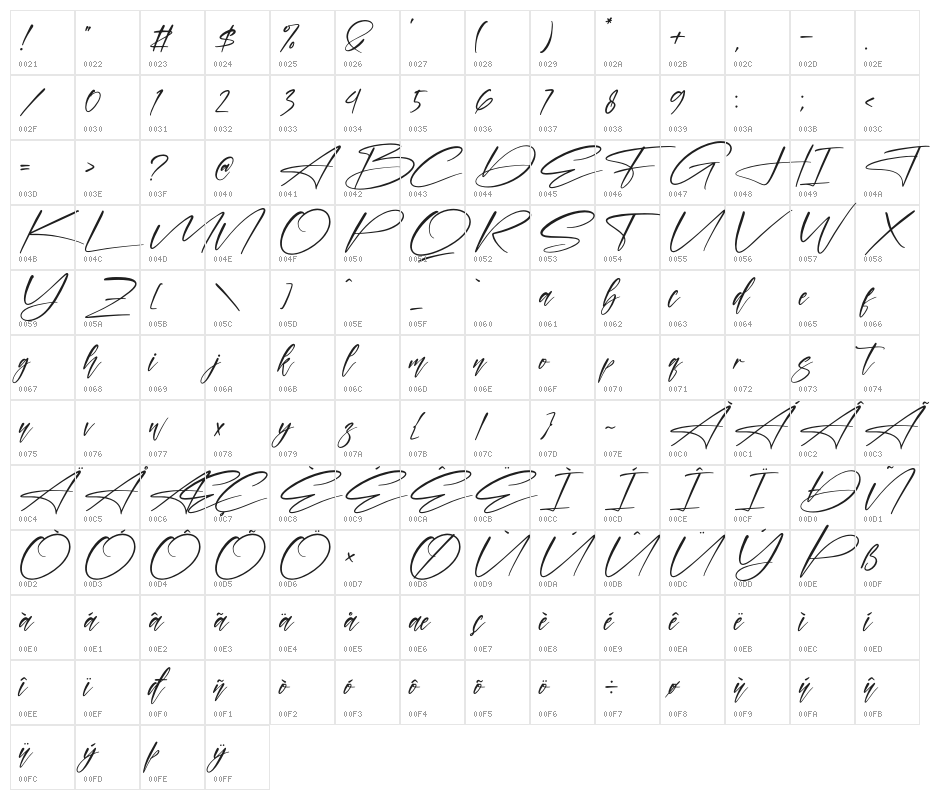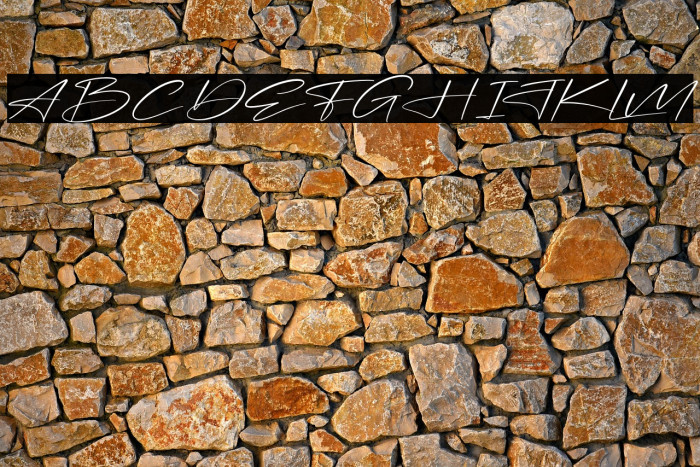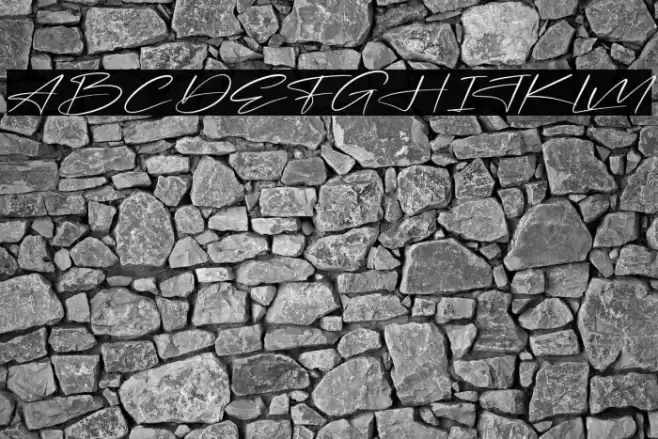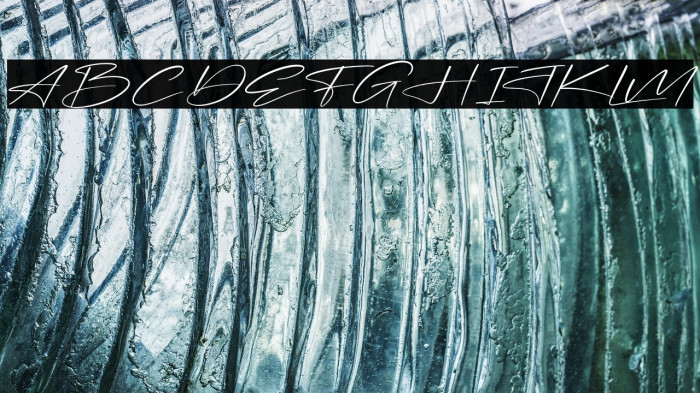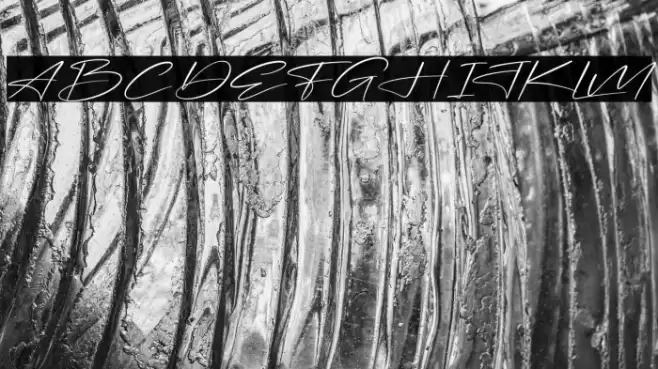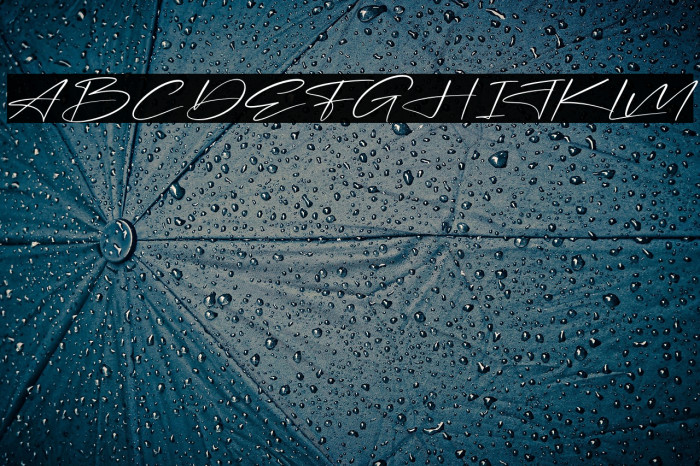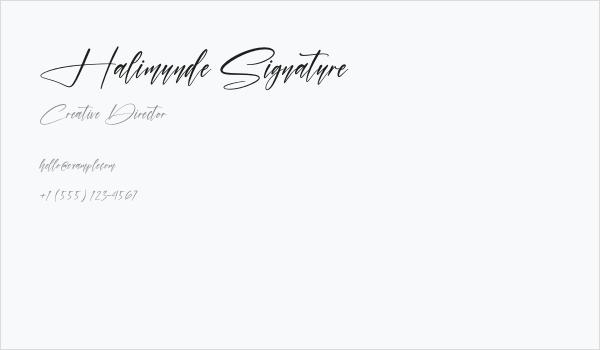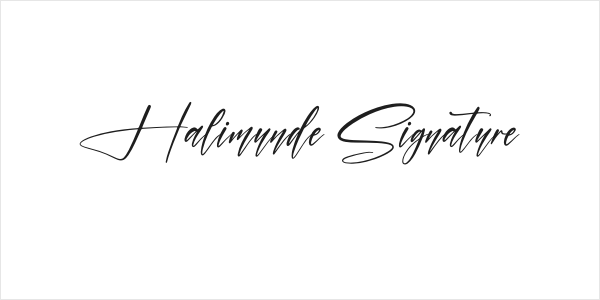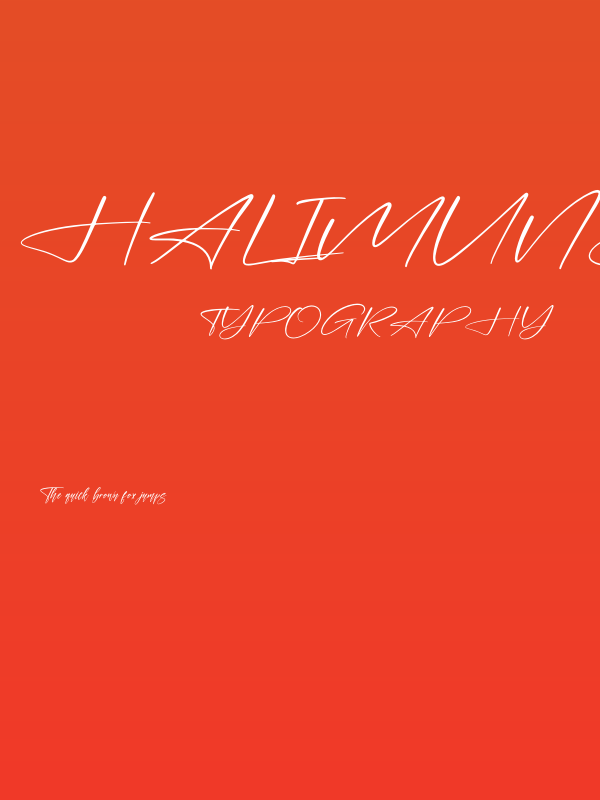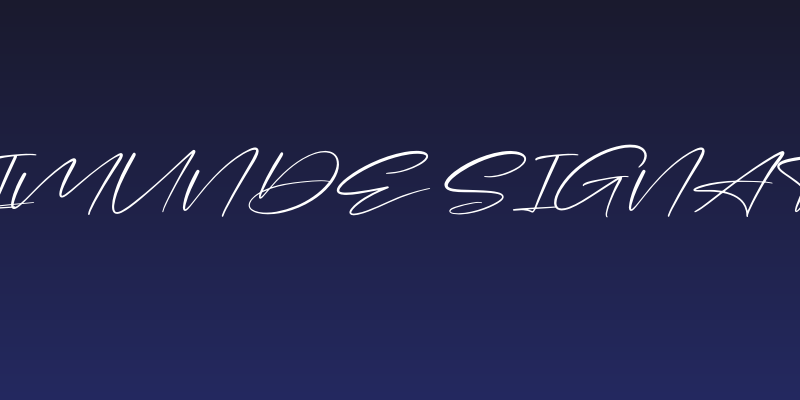
Halimunde Signature Font
Halimunde Signature Description
This font features a dynamic and flowing script style, characterized by its elegant and cursive letterforms. The uppercase letters are tall and slender, with a slight slant that adds a sense of motion and grace. The lowercase letters are more rounded and connected, creating a seamless and fluid appearance. The numbers and special characters maintain the same cursive style, ensuring consistency throughout. This font exudes a sense of sophistication and creativity, making it ideal for projects that require a personal and artistic touch.
| Overall Style | Elegant and Artistic |
| Proposed Projects | Ideal for wedding invitations, branding, logos, and artistic projects that require a personal touch. |